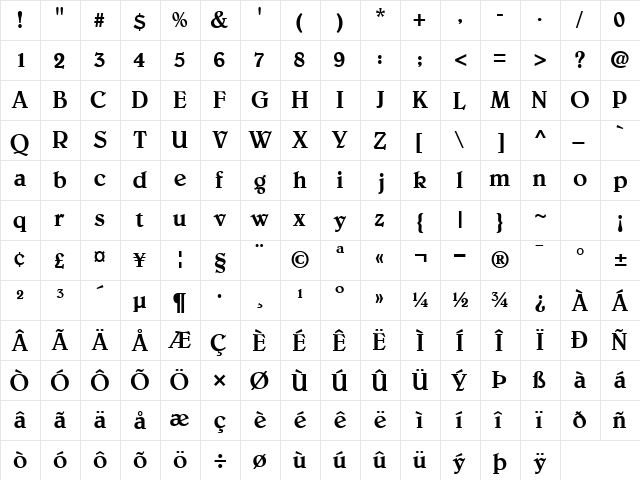
BarristerSSK Regular Font Preview
BarristerSSK Regular
BarristerSSK Regular Font Details
Design Context for BarristerSSK Typeface
BarristerSSK takes a measured approach to typography — its balanced proportions and neutral character make it a reliable workhorse for both digital and print work.